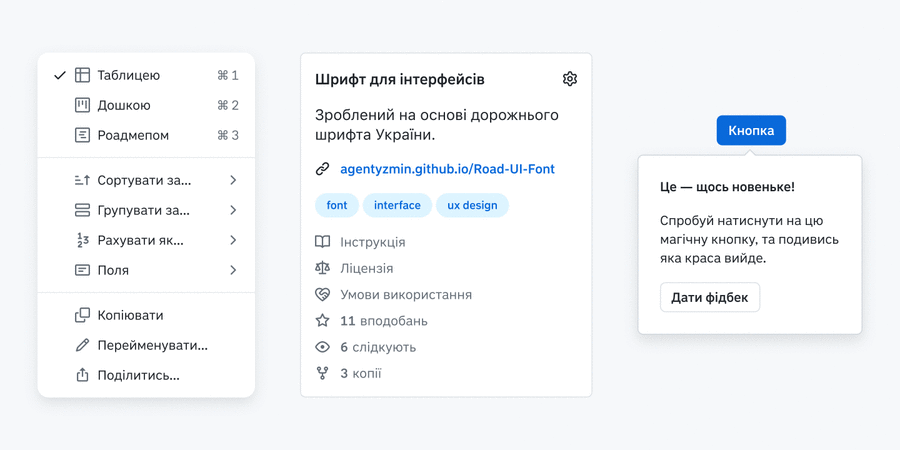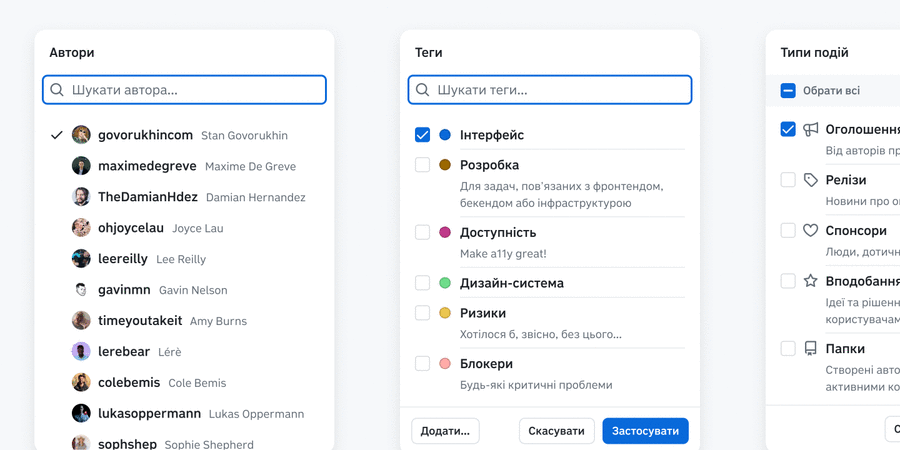
Road UI is a web- and UI-optimized typeface based on Road UA, the road signage typeface of Ukraine. Compared to its predecessor, Road UI has a different weight range adapted for screen use, an additional set of arrows, and added oblique styles.
Road UI features 8 weights ranging from Thin to Black, proportional and tabular figures, and is free for commercial use (CC BY-ND 4.0). The font was designed by Andriy Konstantinov in collaboration with Oleksandr Kolodko and commissioned by the Ukrainian-British company superclear.design in 2024. The quick brown fox jumps over the lazy dog